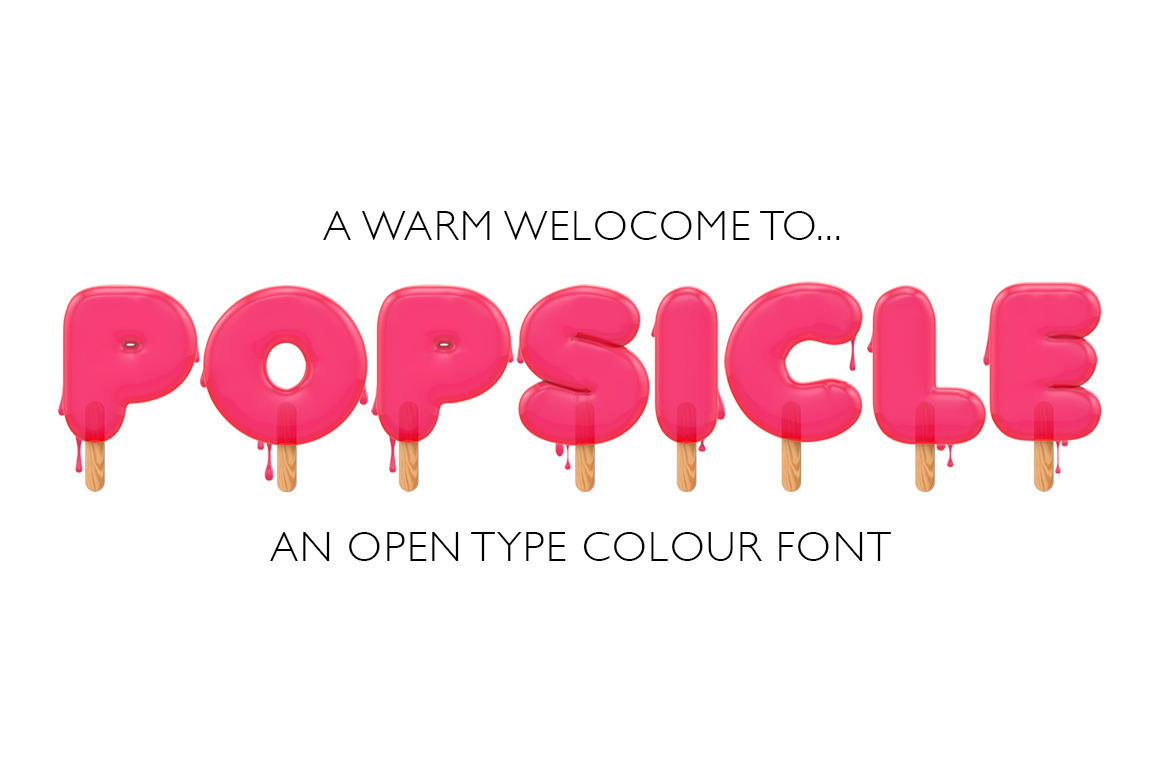
A WARM WELCOME TO POPSICLE
Summer is here and so is my new font POPSICLE a melting ice lolly font made from high quality 3D rendered images. Perfect for bold headers, summer party posters and invitations.
This is a bitmap colour font with each character roughly 1000pixels tall.